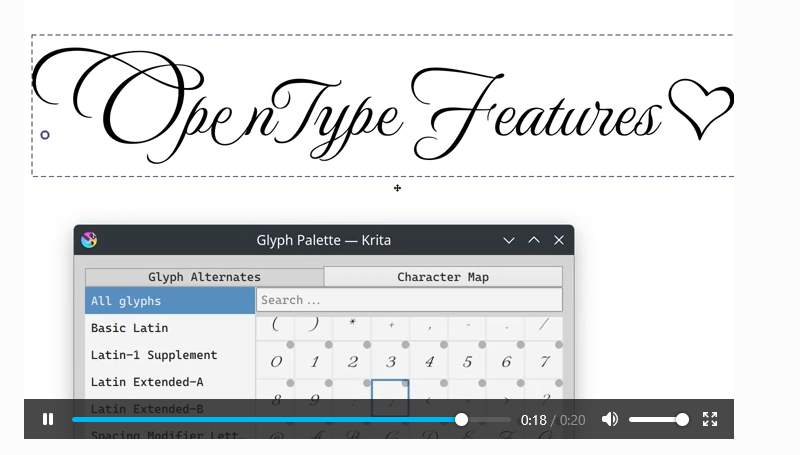
A question a little unrelated, but cant avoid to ask. Font maniac here.
What font are you using for the video? This one i refer:
I would like to use the Baskerville Oldface font with the text tool.
WAIT what is this :000 i havent seen this in krita. how do u get it?
It’s MonteCarlo from google fonts. There’s a few goto fonts I used for opentype features testing, Estonia is another with alternate swashes, but it is a little less easy to read, and also Junicode, which has a lot of alternates, but is at it’s heart a garamond-like, so I was worried it might be hard to convey why someone might want to use opentype features when they could just use a different font.
MonteCarlo was both readable, and it’s clear why the alternates are useful.
I’ve also been using Noto CJK sans for testing unicode variation selectors (which are kinda like opentype alternates, except you define them by unicode because they are fundamental to names being spelled correctly with Han script). The dialog can select these as well.
It has many new, cool and useful features.